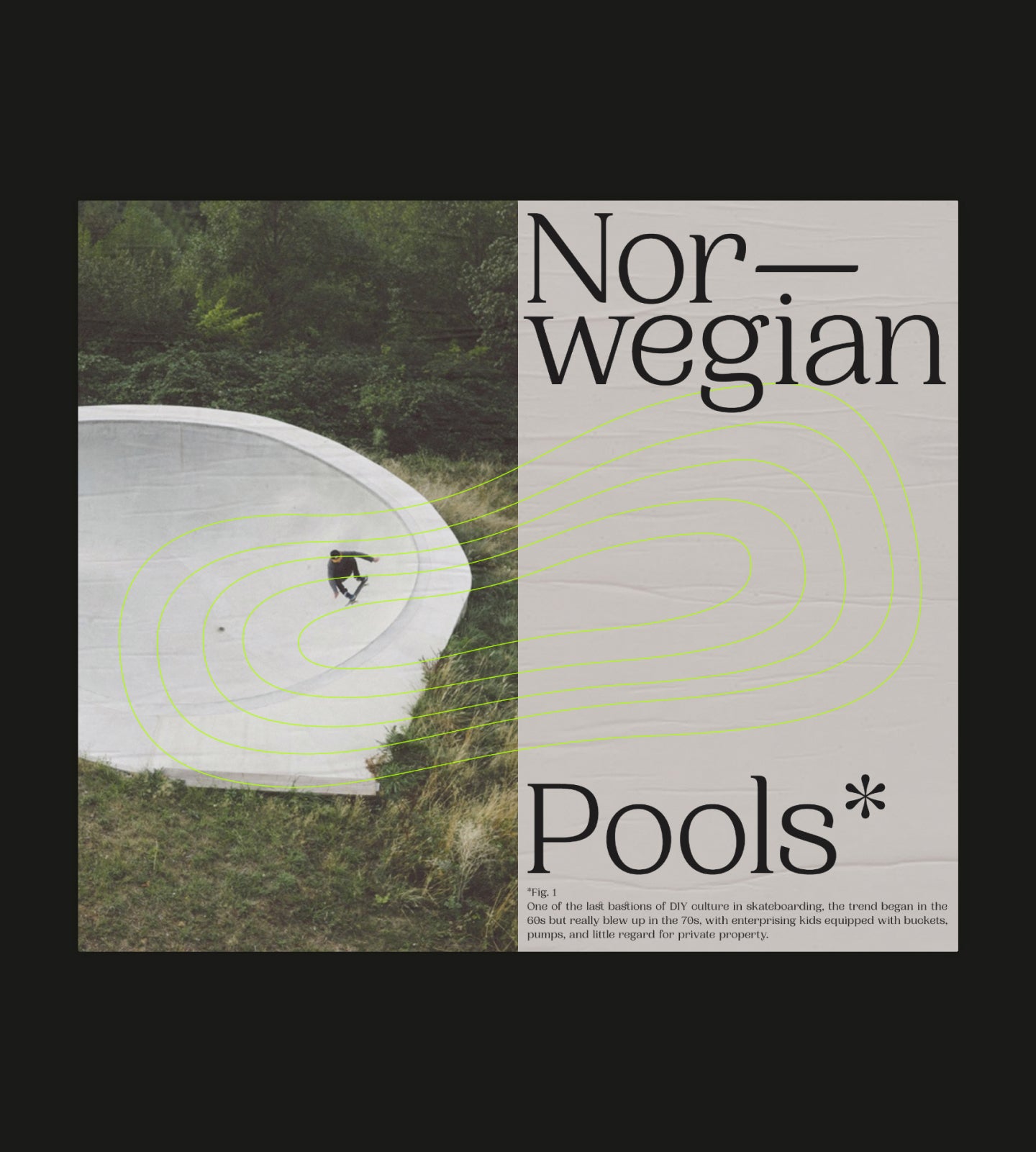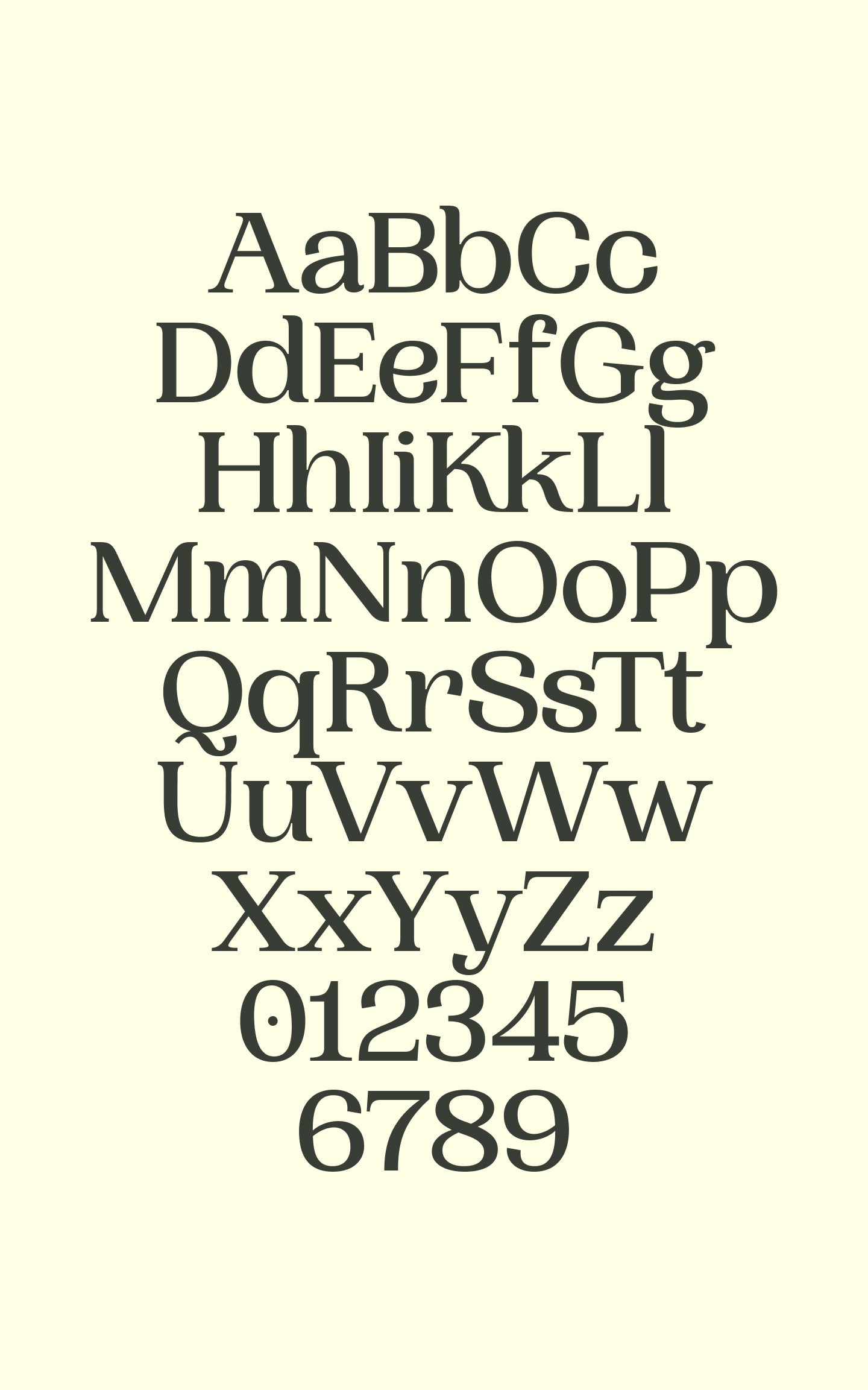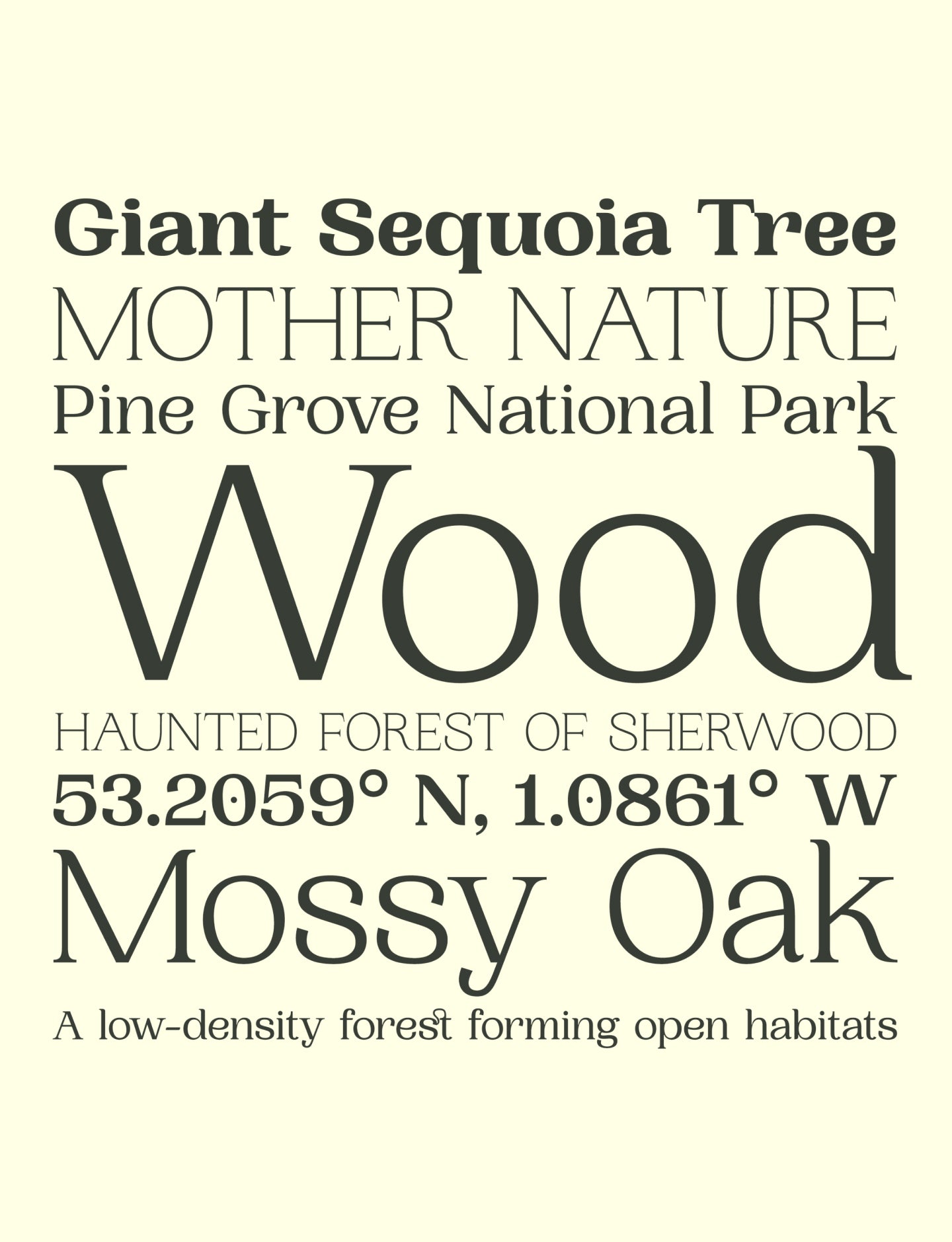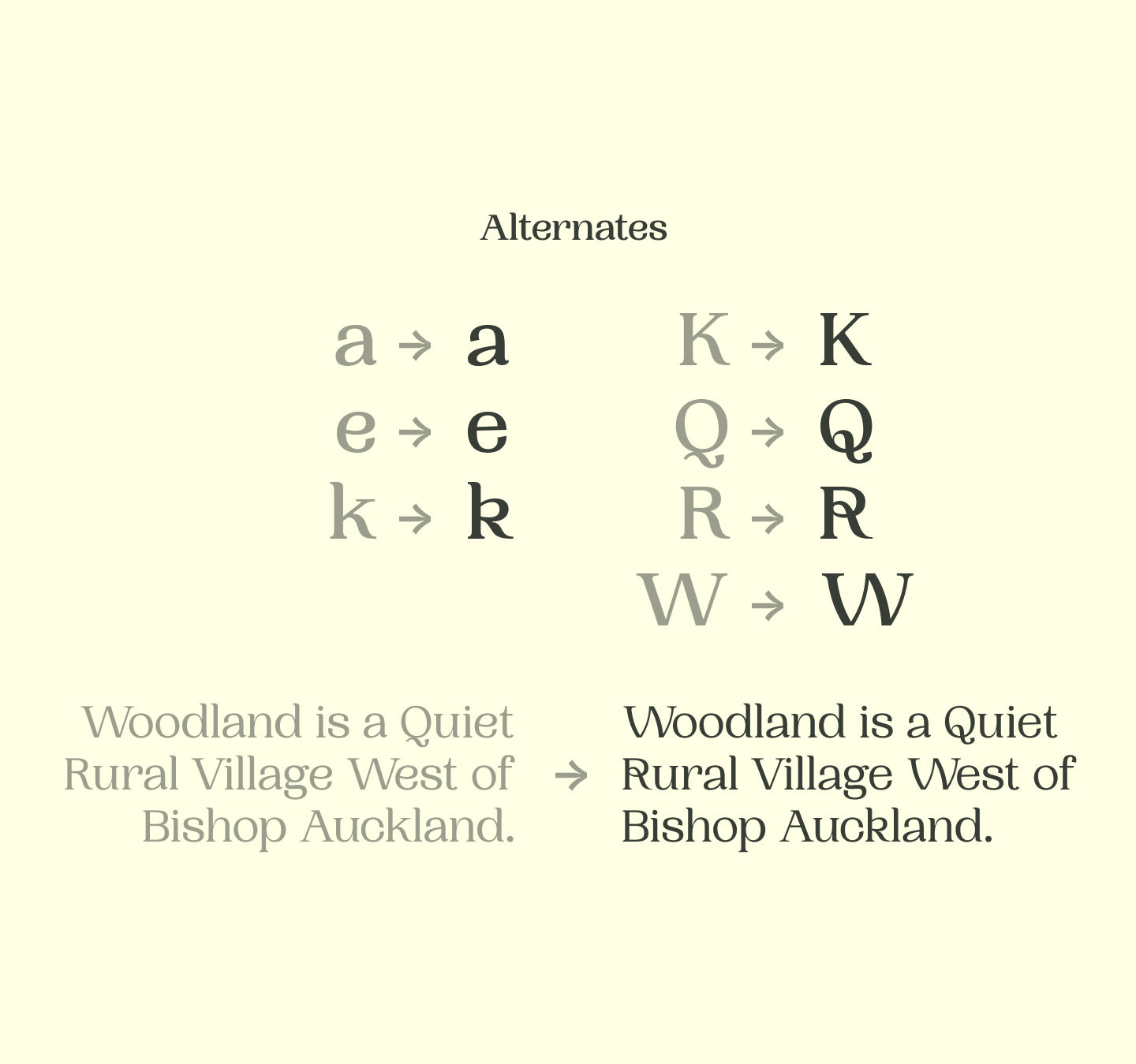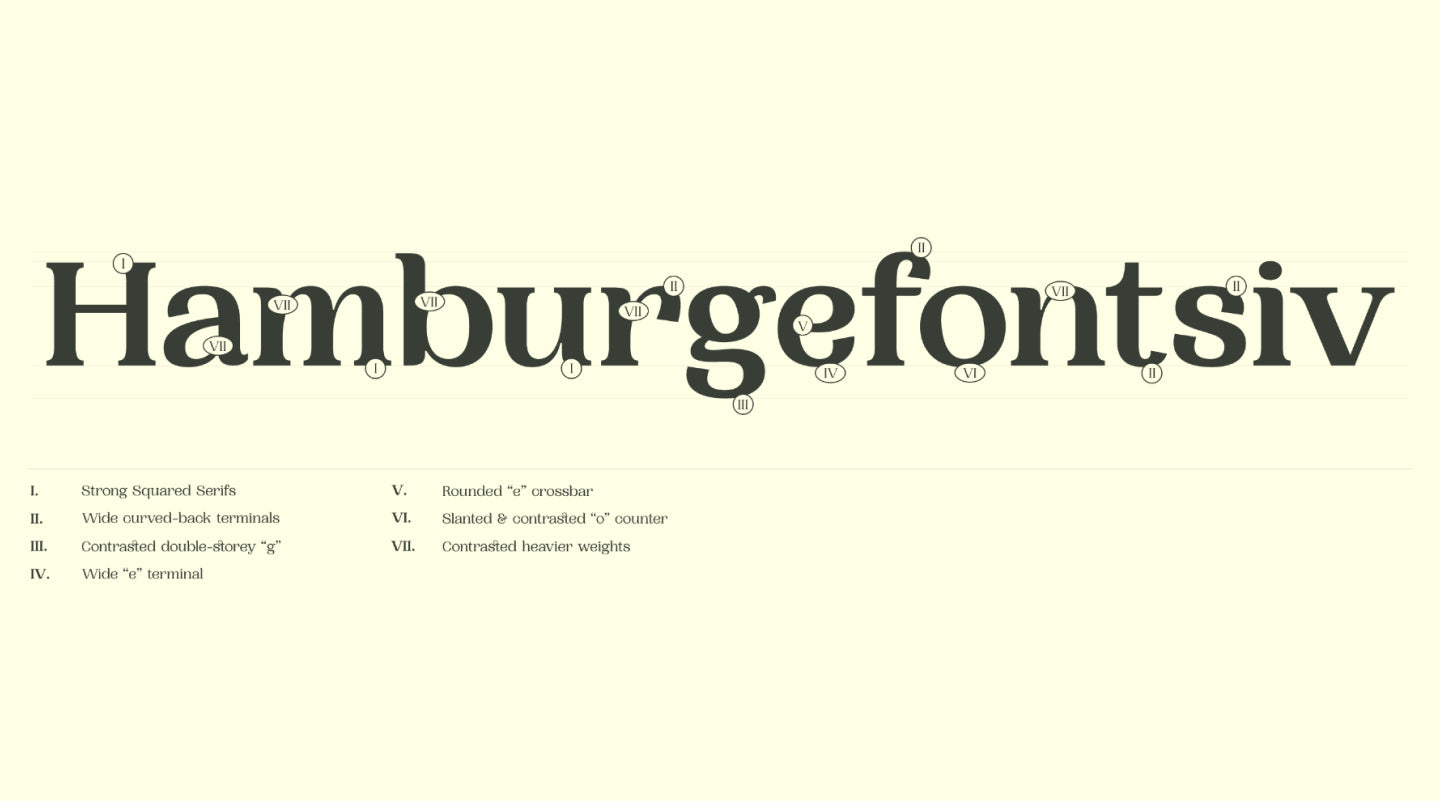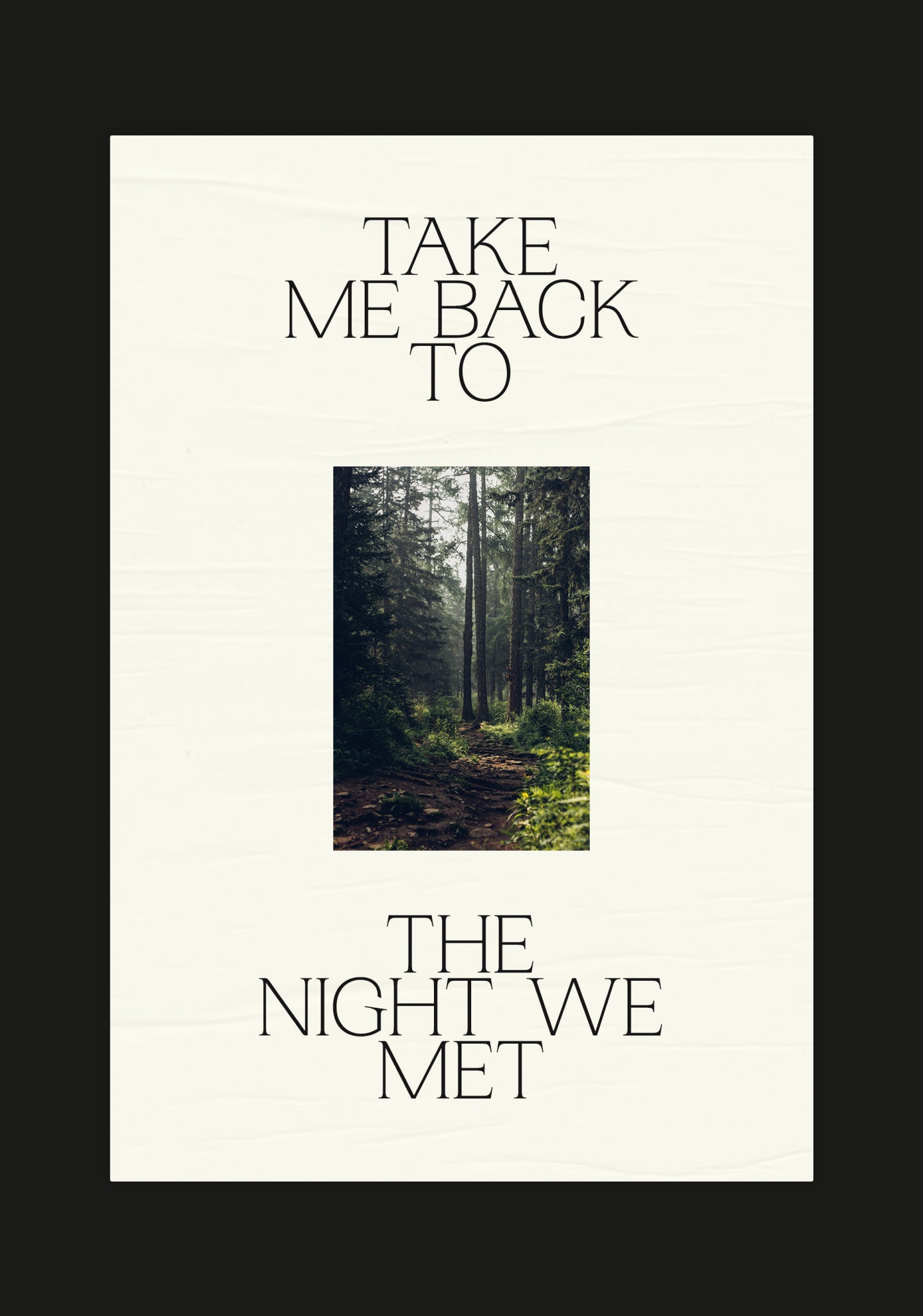
Woodland
Woodland is a beautifully designed serif typeface that blends elegance with a touch of whimsy.
Woodland's Features
Designed with care. Built to charm.
Woodland is a beautiful, curvy, versatile serif typeface with 6 weights, Each 2500 glyphs are crafted with great attention to details to make this font unique and fluid in all its shapes and weights. Its soft quirkiness notably in the lowercase “e” gives this type a great personality in titles and in body texts while retaining optimized legibility. It has elegant ligatures and curvier alternates if ever the need of a bit more personality arises.